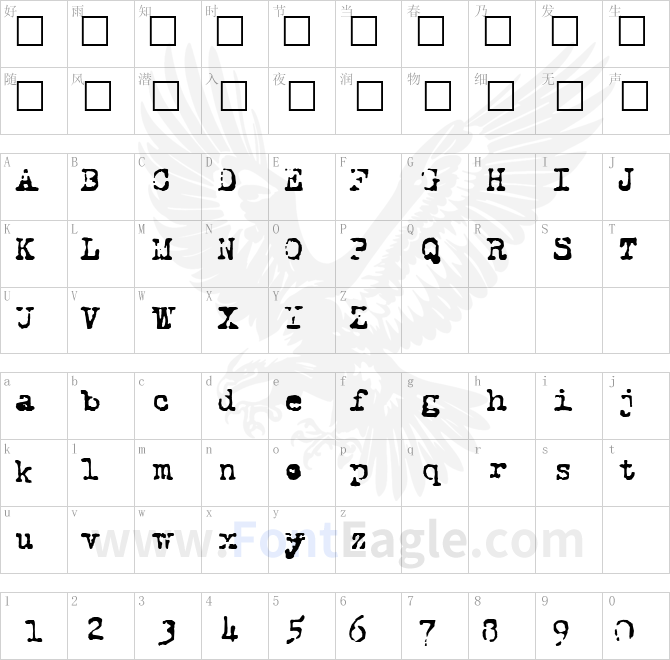
- Font Copyright:Based on the typeface of an old Royal brand typewriter I bought at a garage sale for 50 cents. InDigest AvantFonts / PO Box 480 / Denville NJ 07834-0480. Email: indigest@gti.net. Copyright 1994 Jeff Rentsch. All rights reserved.